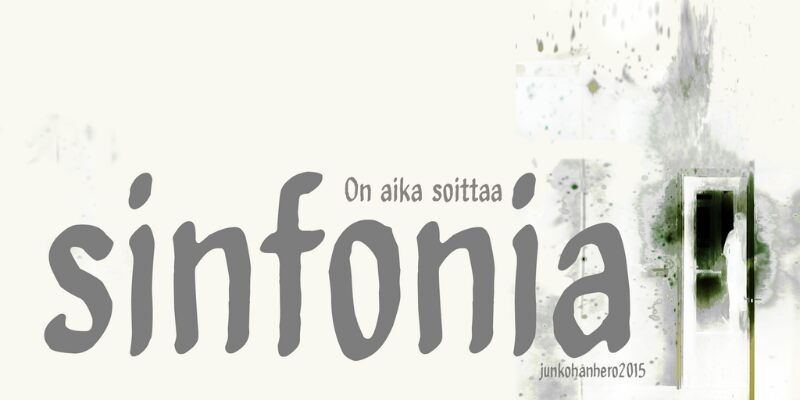
On aika soittaa sinfonia
On Aika Soittaa Sinfonia is a captivating brush font crafted by the designer junkohanhero. Its condensed, organic strokes evoke a sense of fluid motion, effortlessly blending the elegance of calligraphy with a touch of rugged charm. The distinctive flourishes and varied character widths imbue this font with an expressive, almost whimsical personality, making it an ideal choice for headline typography, editorial design, and branding applications that seek to convey a sense of artistry and dynamism.
Versatile and visually striking, On Aika Soittaa Sinfonia seamlessly transitions from bold, attention-grabbing statements to more delicate, understated accents, allowing designers to craft cohesive, visually captivating compositions across a wide range of mediums.